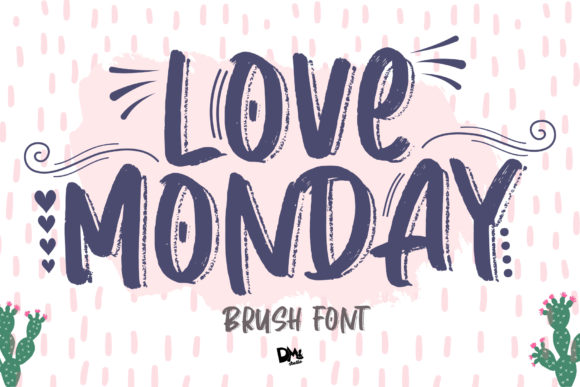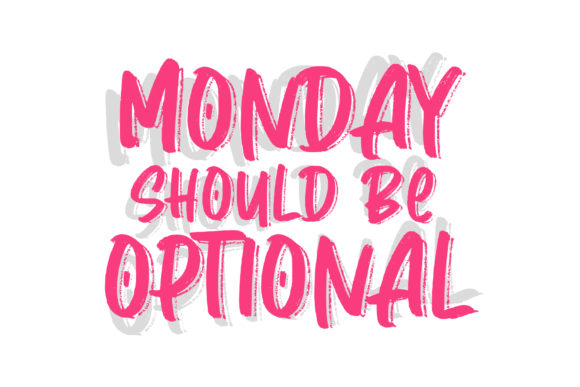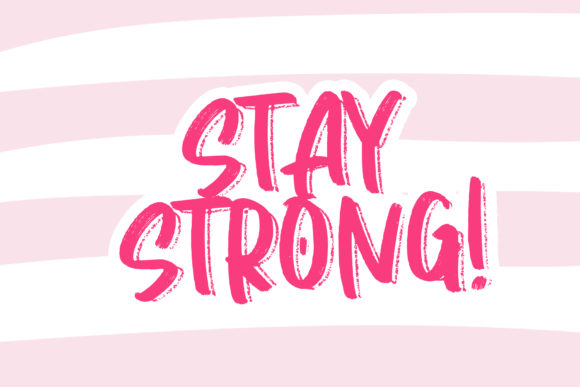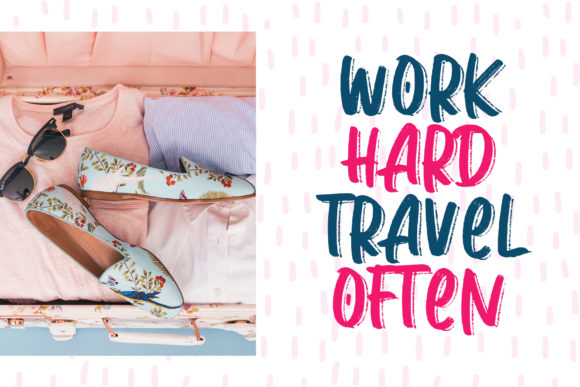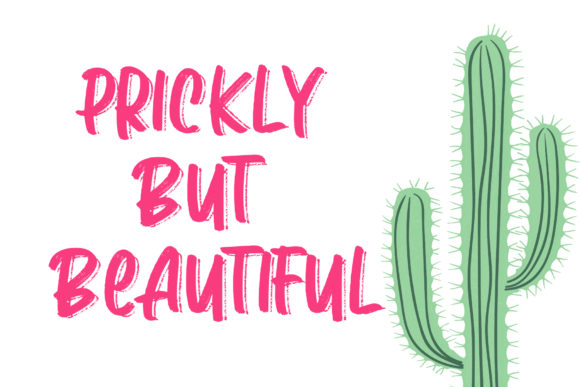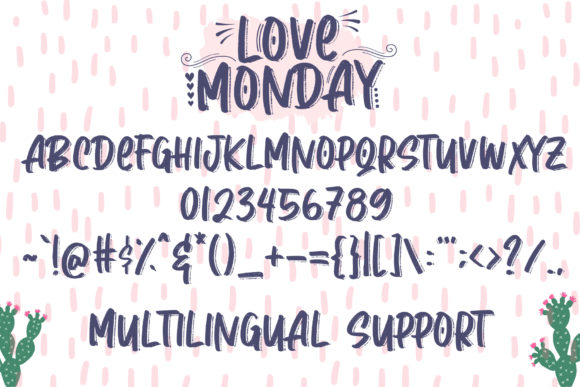
Love Monday Font
About Love Monday Font
Lovely Monday is a cute handwritten font that will make your day more cheerful! Enjoy the chic and chalky brush style!